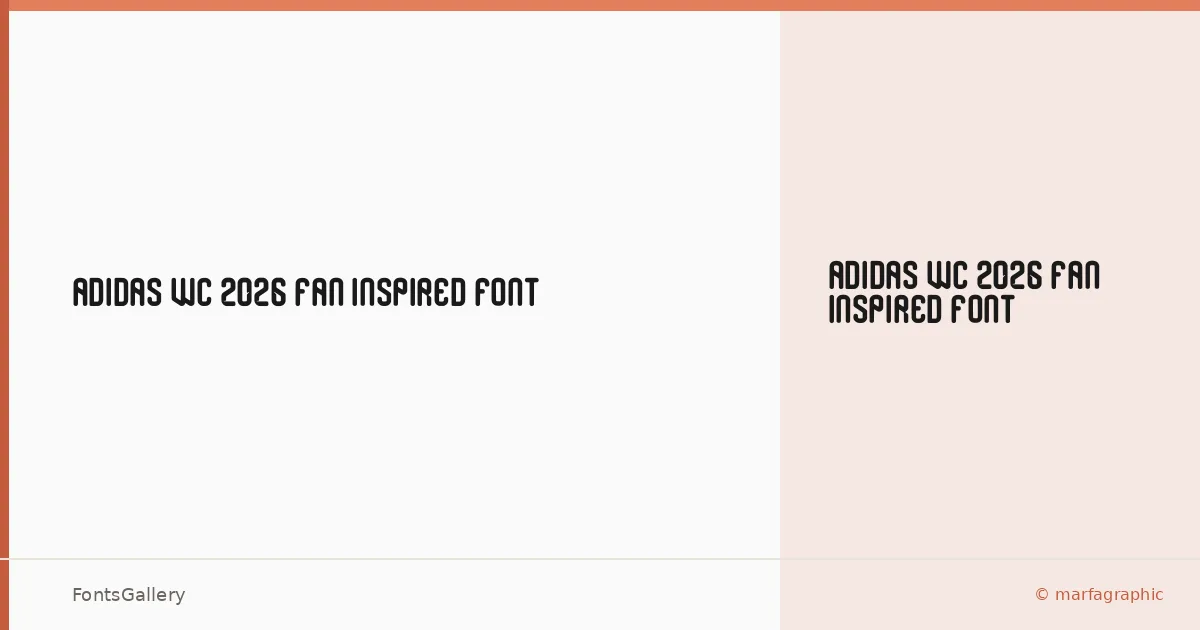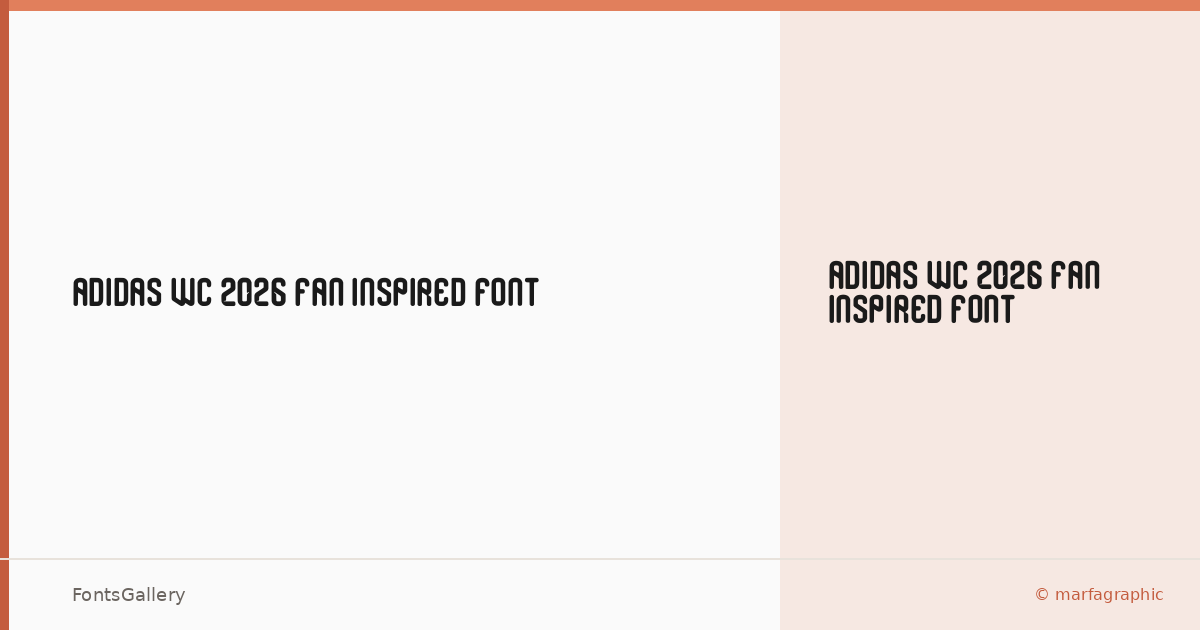
About Adidas WC 2026 fan inspired font Font
There is something unmistakably stadium-ready about these letterforms — angular, compressed, and built to read at distance. Released by foundry marfagraphic, this is a fan-made tribute to the spirit of the 2026 World Cup, independent of any official federation or governing body. The single Regular cut arrives as a TTF with installable embedding permissions, keeping production straightforward.
This is a display typeface that leans hard into the futuristic and bold end of the spectrum, with the kind of modern geometry you associate with sports branding and arena graphics. The Latin character set is drawn with confident strokes — tight spacing, strong verticals, and just enough visual tension to feel contemporary without tipping into novelty. It exists as one weight, so its personality is fixed and unambiguous: this face does not whisper.
It earns its keep in branding, logo lockups, posters, signage, and T-shirt design — anywhere impact matters more than extended reading. Paired with the neutrality of Helvetica or the clean geometry of Aileron, the display energy stays in check; set alongside Abrade, Aranea, or AQUA, the combination can push further into the expressive and editorial. Latin language coverage keeps it well-suited to Western European markets and global sports contexts that operate in that script.